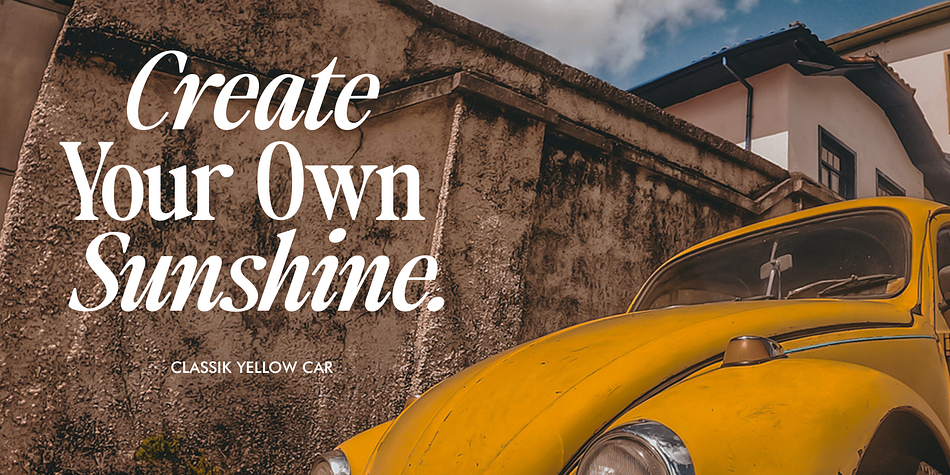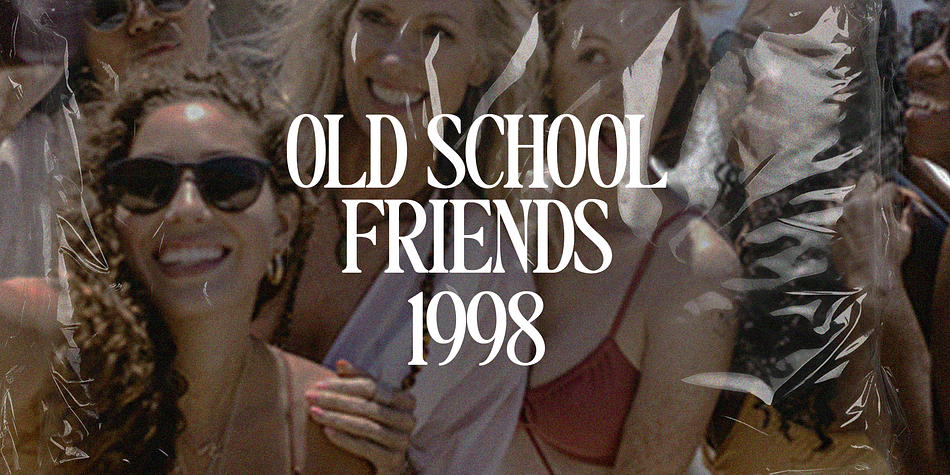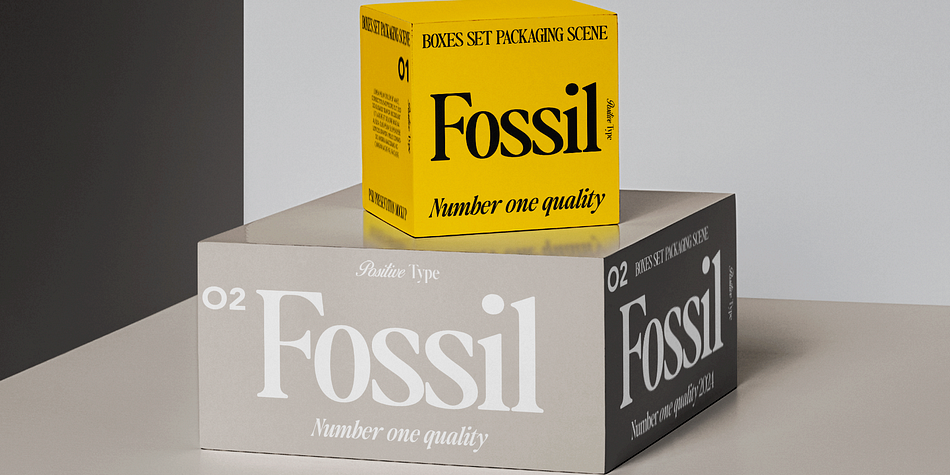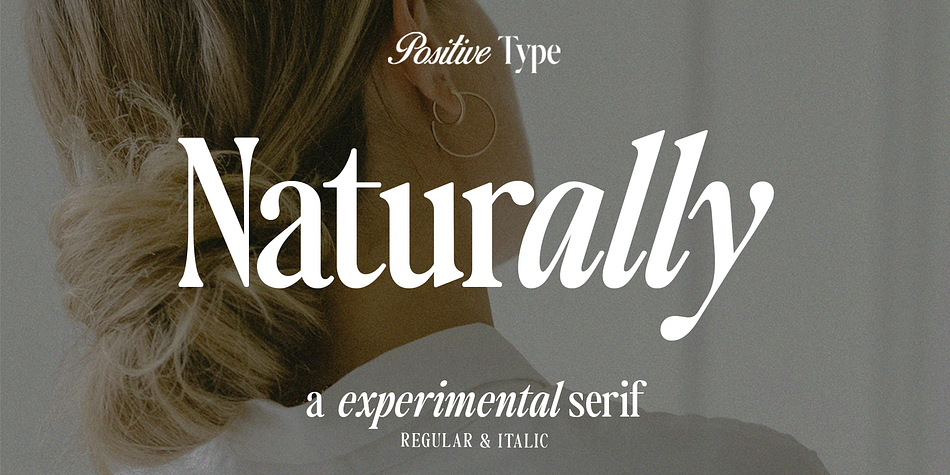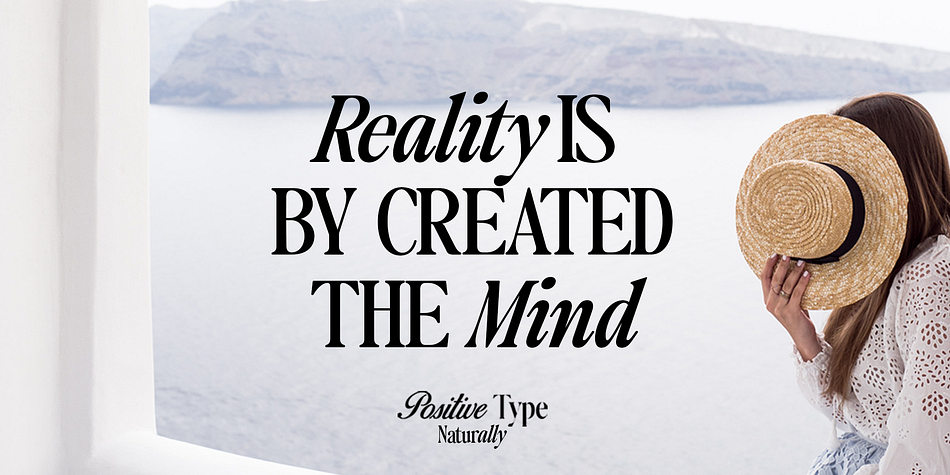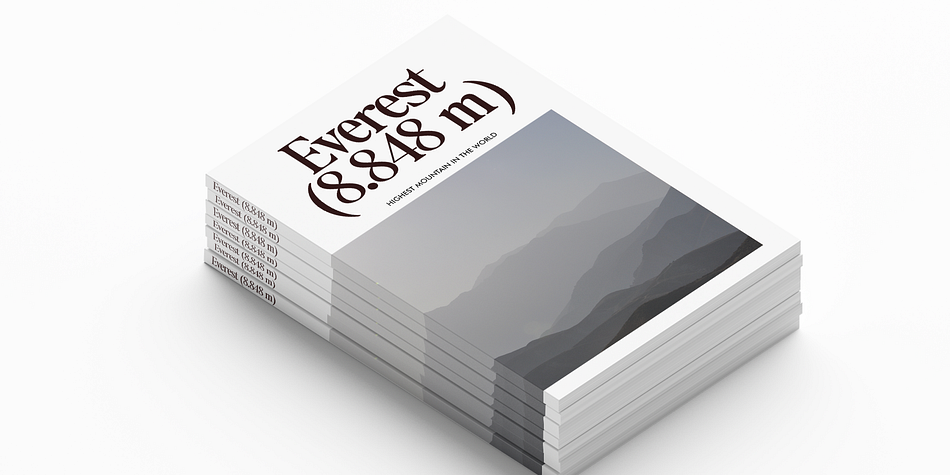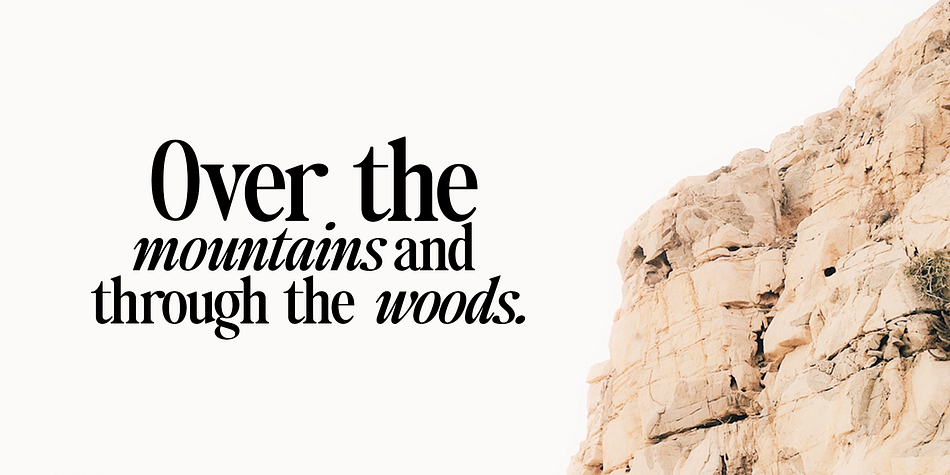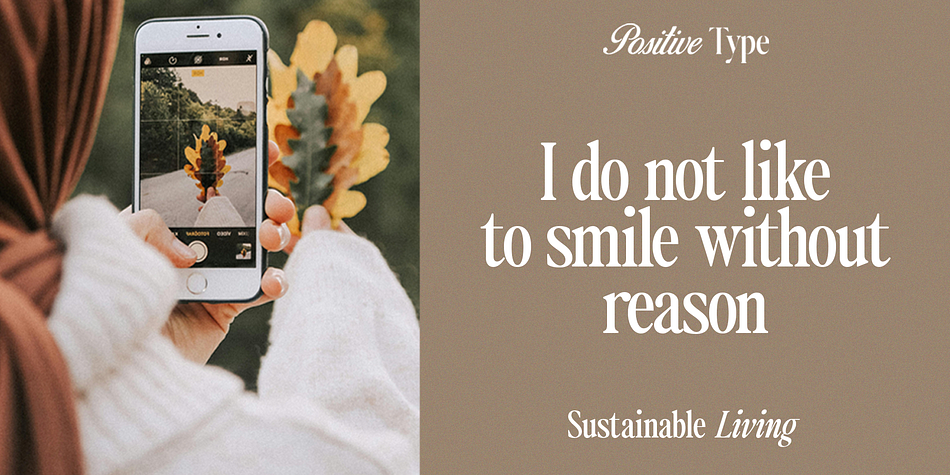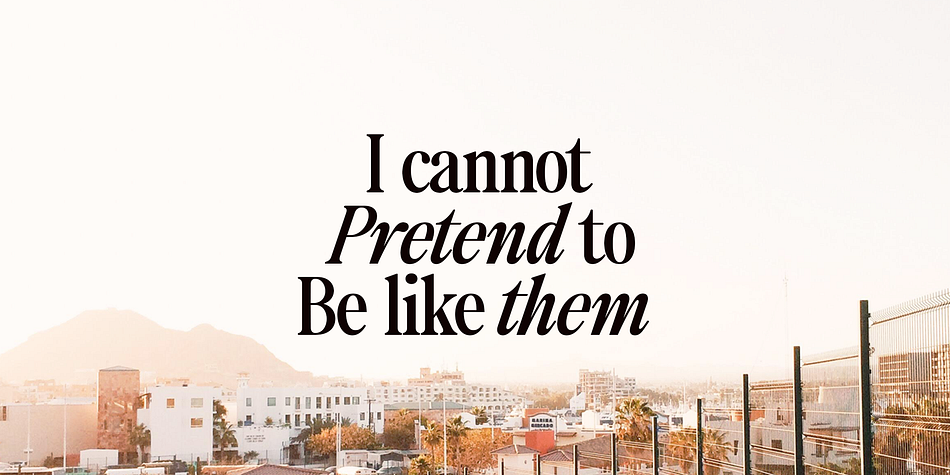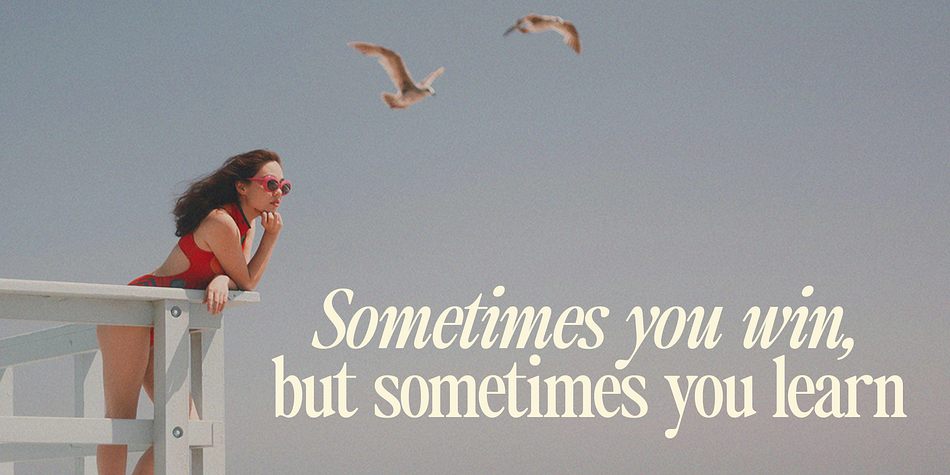
Naturally
Naturally is a serif font family. This typeface has two styles and was published by Positive TypeFoundry.
Introducing Naturally, a stunning typeface that combines the characteristics of sleek and exotic beautifully crafted serif fonts, making it an ideal choice for creating elegant and sophisticated designs.
Naturally blends a vintage look with a modern style to add elegance to your projects. This font can be used in high-end branding, logo design, magazines, product packaging & invitations, wedding designs, social media posts, advertisements, labels, photography, and watermarks.
Naturally is a stylish font. This font has a modern and playful look. Helps create layout designs in 60s or 70s design projects.
Naturally font is an elegant Regular and Italic display serif typeface with fine details. This neat font can contribute to a modern and fashionable brand appeal.